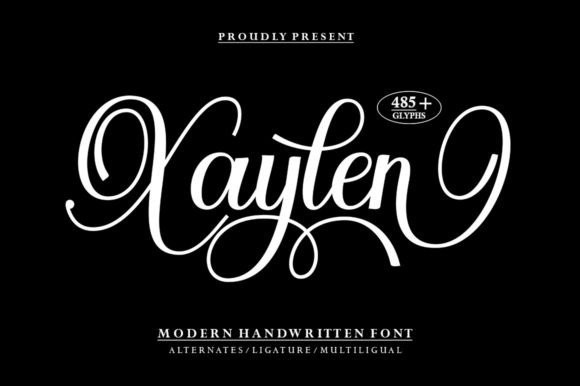
Behold, Xaylen Font, an exquisite script that will captivate your imagination and leave an indelible mark on your designs. Crafted with meticulous attention to detail, this font exudes boldness and grace, perfectly capturing the essence of modern calligraphy. Its sweeping lines and elegant glyphs will elevate your projects to new heights, making them stand out from the crowd.
Unleash your creativity and let Xaylen Font take you on an artistic journey. Its versatility knows no bounds, effortlessly adapting to a myriad of projects. Whether you're creating stunning invitations, eye-catching posters, or personalized branding, this font will transform your ideas into masterpieces. Xaylen Font is more than just a collection of letters; it's an expression of your individuality, a tool that empowers you to make a statement with every word you write.
Picture your designs adorned with Xaylen Font's alluring curves and captivating swashes. Imagine the awe and admiration it will evoke, leaving a lasting impression on all who behold it. This font is your gateway to a world of creativity and endless possibilities, where your imagination is the only limit.
But what truly sets Xaylen Font apart is its accessibility. With its PUA encoding, incorporating this font into your designs is a breeze. Access all the glyphs and swashes with ease, unleashing the full potential of this remarkable font. Open up a world of typographic possibilities and let your creativity soar.
Don't settle for ordinary fonts; embrace the extraordinary with Xaylen Font. Its unique charm and undeniable beauty will elevate your projects to new heights, leaving a trail of visual splendor wherever it goes. Discover the limitless possibilities that await you with this exceptional script font, and let your designs shine brighter than ever before.